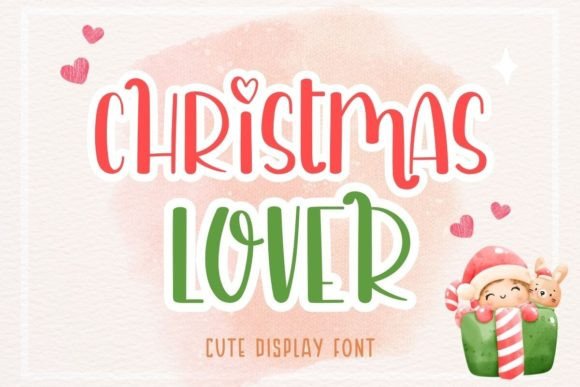
Christmas Lover Font
Christmas Lover is a cute display font that will help you enjoy and have fun with your designs. Perfect for creating a wide variety of new designs to match products such as banners, content, mugs, cards, shirts, stationery, social media posts, and more!